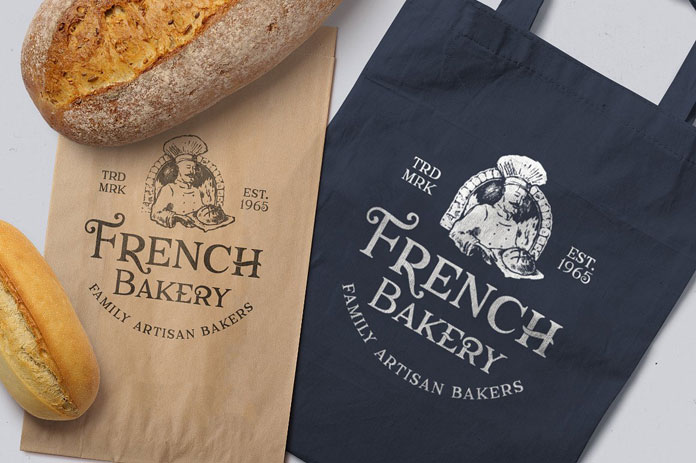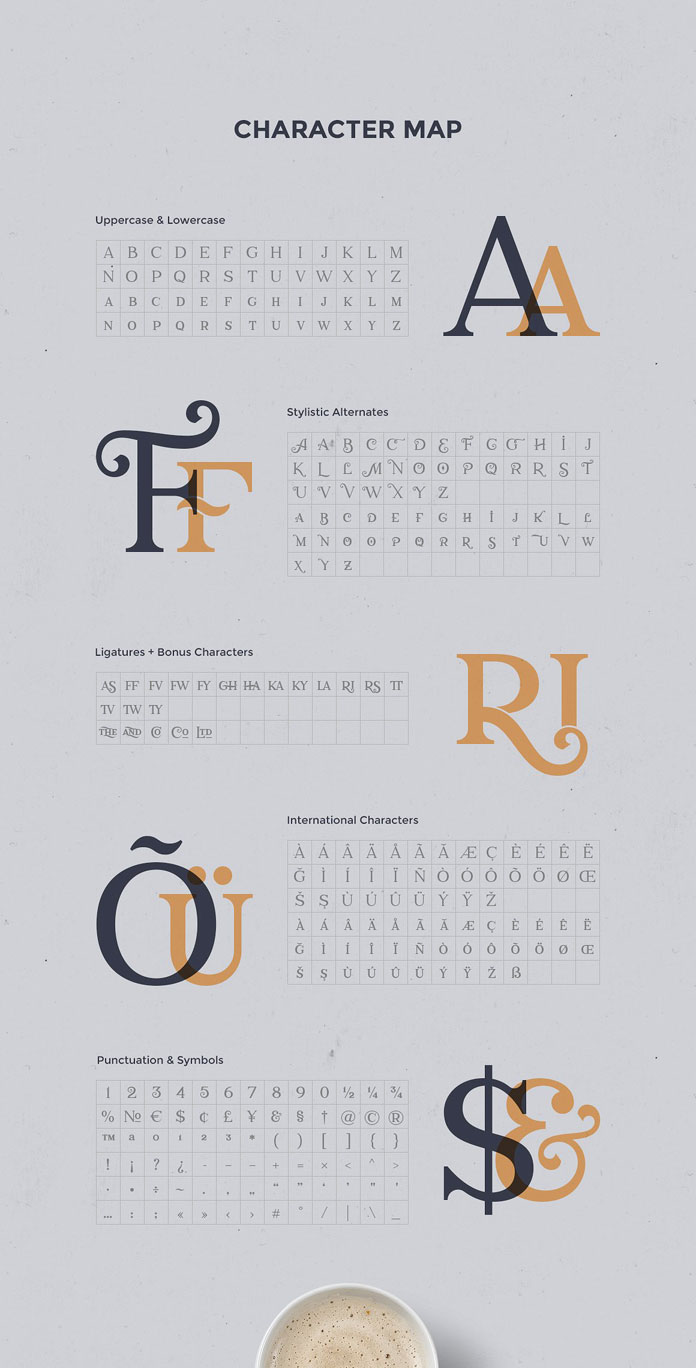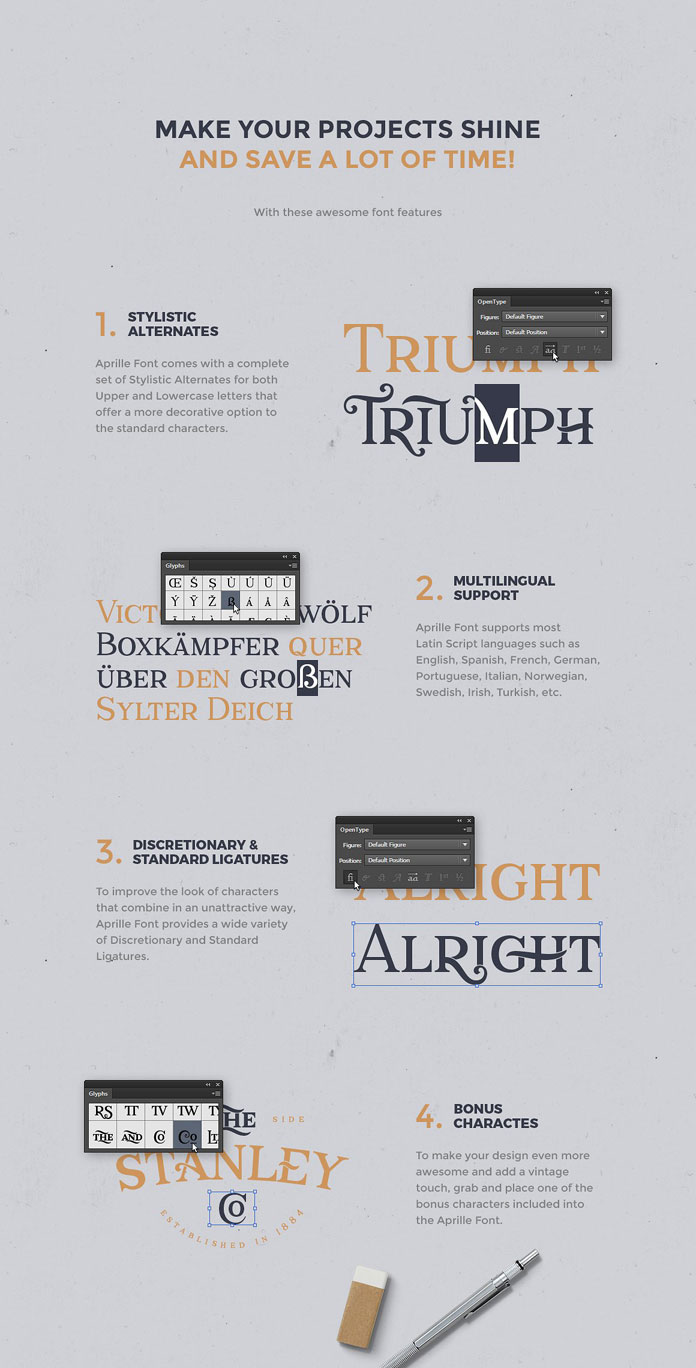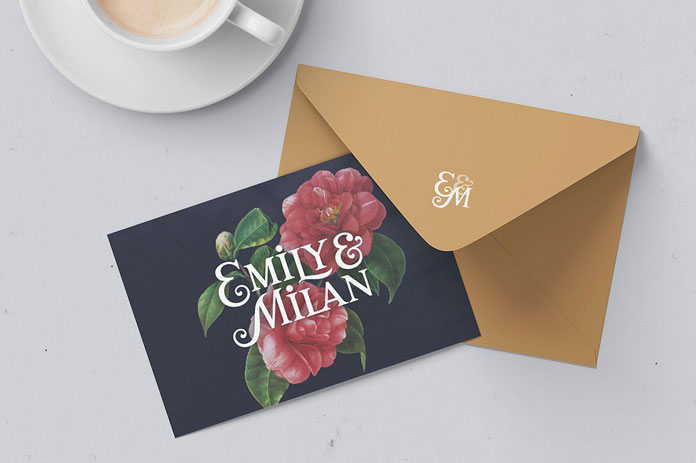
Discover the elegant Aprille typeface, a vintage inspired display font with impressive features.
The Aprille typeface has been created by graphic and type designer Victor Barac. This elegant vintage display font is well suited for branding and packaging projects as well as invitations, apparel design and much more. It comes with plenty of typographic features and symbols. You can get more detailed information below or click on the following link to order this beautiful typeface for low budget on Creative Market.
Aprille, a vintage display font with extended OpenType features.
Equipped with an extensive set of characters, additional symbols, and useful typographic features, this typeface can be used for advertising, branding, quotes, logos, apparel, wedding invitations, packaging design, just to name a few. The set of OpenType features includes stylistic alternates, ligatures, symbols and punctuation. The full character set consists of a total number of 290 glyphs. OTF and TTF files are included. For additional information, please follow the link below.